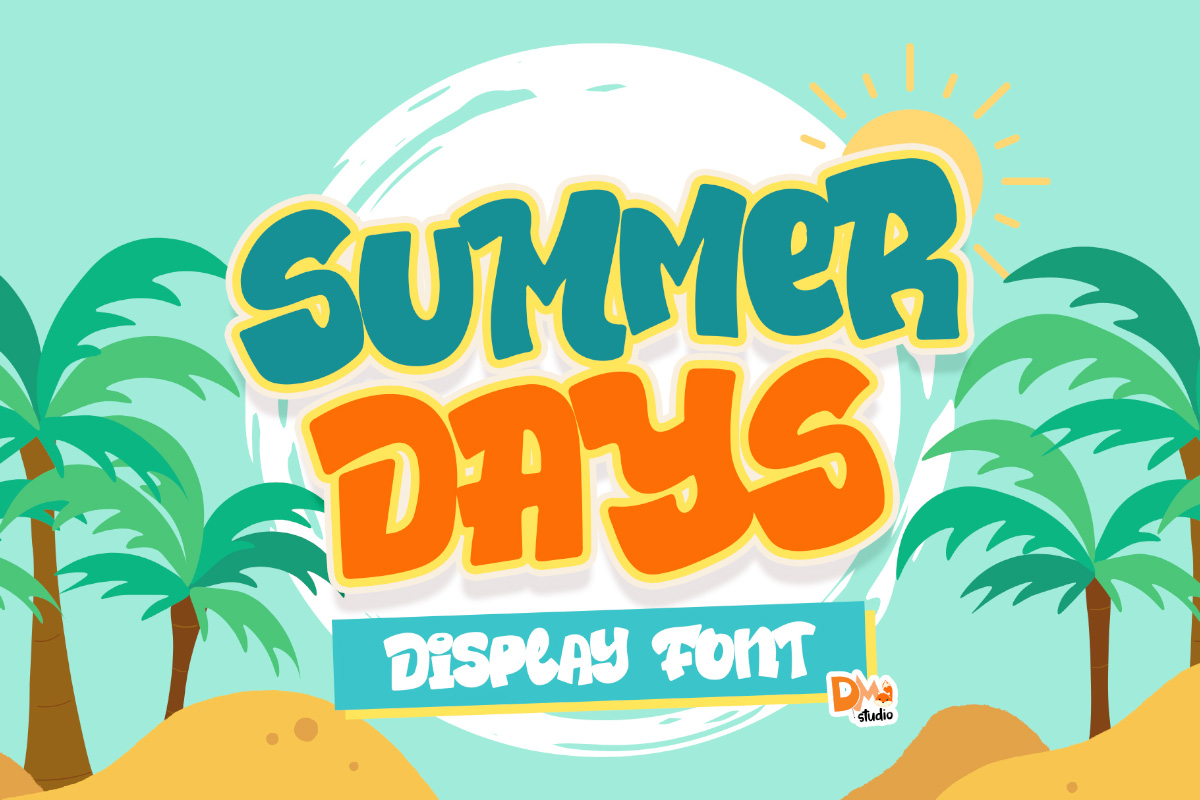
Fonts That Embody That Summer Feeling:
Font suggestion: Try Summer Days Font for a bright, bold punch to go with these lines.
3. Product Packaging – Ice cream containers or beach toys with a sense of humor stand out.
4. Wall Art or Merch – Custom mugs, shirts, or canvas prints featuring funny summer sayings.
Let Summer Fonts and Quotes Make Waves
In the sea of bland designs, a funny quote and the right summer font are your life raft. Stand out by being the brand (or designer) who knows how to pair clever copy with sun-drenched style.
Whether you’re printing posters, designing social media graphics, or just posting a funny meme, these fonts and quotes bring the heat and the laughs. And let’s not forget, typography should feel like summer—light, bold, and full of personality.
Conclusion: Laugh Through the Heat
Summer isn’t just a season—it’s a mood. A sweaty, sticky, sun-drenched mood. And what better way to celebrate it than with funny quotes on summer? When paired with fonts like Beach Crush, Summer Heaven, or Sunday Feast, you’ve got design gold.
Keep those giggles coming, whether you’re on the beach, in the AC, or somewhere in between. Life’s too short not to laugh—especially in flip-flops.